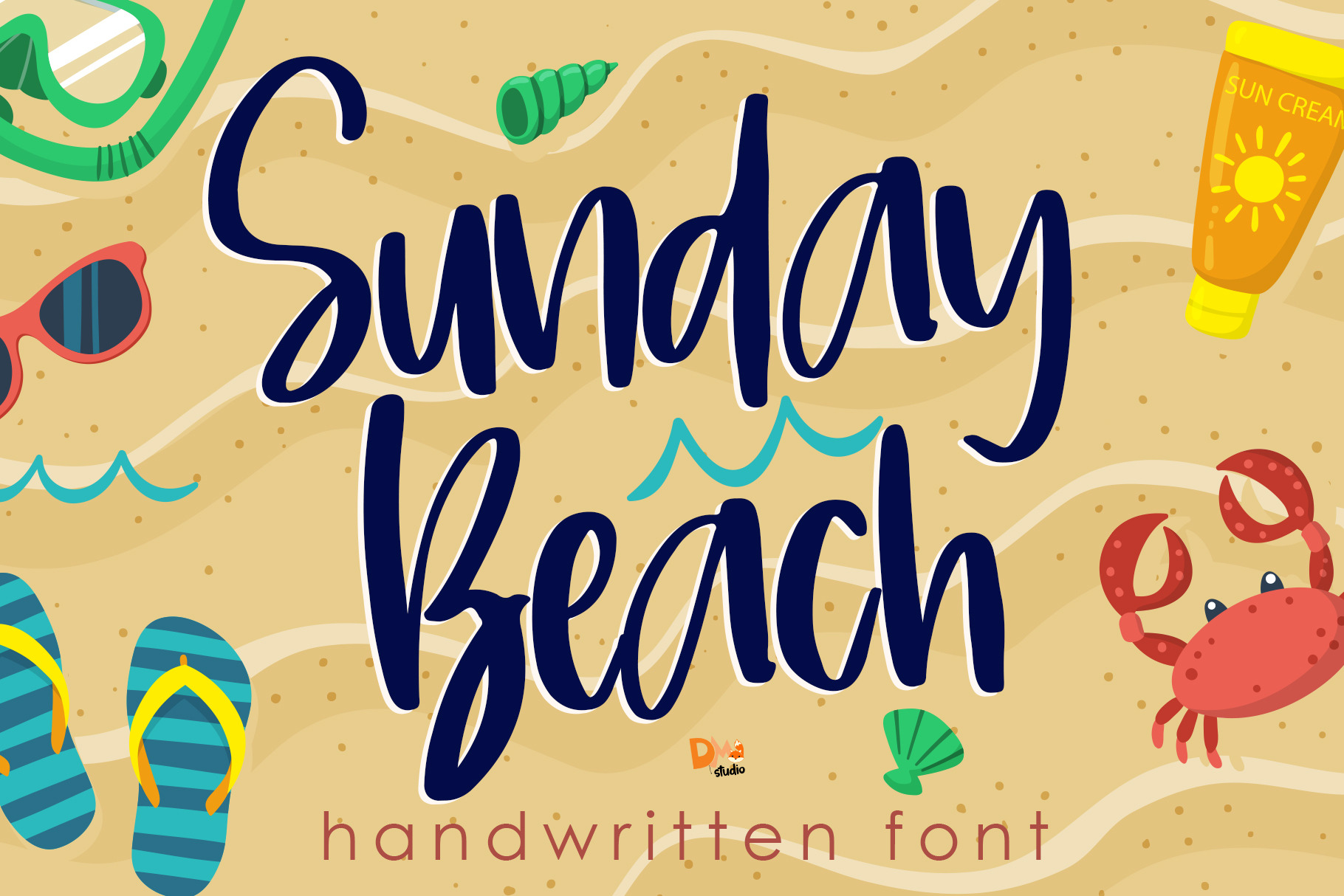
Sunday Beach - Handwritten Font
Sunday Beach Handwritten Font
Sunday Beach is a quirky, cool and relax handwritten font. Make your design looks fun and modern with this font style!